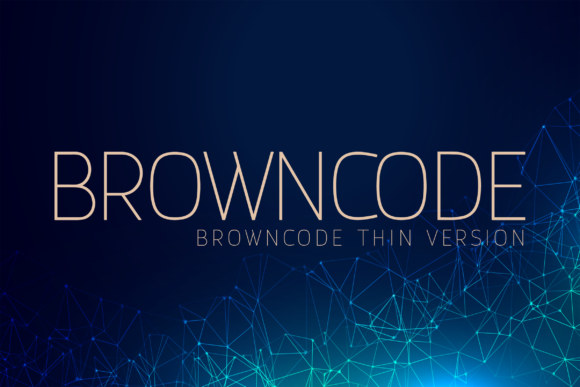
Discover the Perfect Blend of Style and Readability
Have you ever found yourself staring at a blank page, searching for the perfect font to bring your design to life? The struggle is real, but what if I told you that there’s a solution that’s been hiding in plain sight? For designers, the quest for the perfect font can be a never-ending journey, but what if I told you that you’ve just stumbled upon the perfect companion?
Enter the Browncode Thin Font, a stunning sans serif font that combines elegance with absolute readability. This beautifully balanced font is designed to deliver your message with clarity and style, making it the perfect choice for any design project. Whether you’re working on a branding project, a magazine layout, or a website design, the Browncode Thin Font is sure to elevate your design game.
Browncode Thin Font Key Features
- Font Family: Browncode Thin, Browncode Thin Italic
- Unique Characteristics: Designed to be highly legible at small font sizes, ideal for digital displays and signage
- Language Support: Supports Latin-based languages, including English, Spanish, French, and many more
Browncode Thin Font Review
Overall, I’m quite impressed with the Browncode Thin Font. It’s a great addition to any design project that requires a clean and minimalist aesthetic. ✨ The font is incredibly legible, even at smaller font sizes, and it pairs well with a variety of other fonts.
- Legibility: The Browncode Thin Font is remarkably easy to read, making it perfect for body text or titles.
- Design versatility: This font can be used for a wide range of design projects, from digital interfaces to print materials.
- Modern feel: The font’s thin lines and clean design give it a modern and sleek look that’s perfect for contemporary designs.
That being said, there are a few limitations to the Browncode Thin Font. ⚠️ The font may not be the best choice for projects that require a lot of emphasis or drama, as its thin lines can make it difficult to stand out. Additionally, the font may not be as suitable for projects with a lot of bold or heavy elements.
Overall, I’m really pleased with the Browncode Thin Font. It’s a solid choice for designers who want a clean, modern font that’s easy to read and versatile in its applications.
Getting the Most Out of Browncode Thin Font
For optimal results, use Browncode Thin Font in conjunction with a clean and modern design aesthetic.
Use Browncode Thin Font for headings and titles to add a touch of sophistication.
Browncode Thin Font is ideal for:
Alternatives to Browncode Thin Font
Open Sans Light
Open Sans Light is a clean and modern sans-serif font suitable for digital interfaces, signage, and body text. It’s ideal for designs where a light, yet legible font is required.
Comparison to Browncode Thin Font: Open Sans Light has a more rounded and friendly feel, whereas Browncode Thin Font has a more geometric and technical appearance. Open Sans Light is more versatile and can be used in a wider range of designs.
Montserrat Light
Montserrat Light is a sans-serif font designed for urban environments and digital interfaces. It’s perfect for designs that require a clean, modern, and highly legible font.
Comparison to Browncode Thin Font: Montserrat Light has a more geometric and condensed feel, whereas Browncode Thin Font has a more relaxed and cursive appearance. Montserrat Light is ideal for designs that require a high level of readability.
Merriweather Light
Merriweather Light is a classic serif font suitable for body text, editorial content, and historical designs. It’s ideal for designs where a traditional and elegant font is required.
Comparison to Browncode Thin Font: Merriweather Light has a more traditional and formal feel, whereas Browncode Thin Font has a more modern and technical appearance. Merriweather Light is more suitable for designs that require a sense of sophistication and elegance.
Lato Light
Lato Light is a modern sans-serif font suitable for digital interfaces, signage, and body text. It’s ideal for designs where a clean, modern, and highly legible font is required.
Q: Can I customize the Browncode Thin Font for my specific design needs?
Yes, the Browncode Thin Font can be customized to meet your specific design needs. You can adjust the font’s color, size, and spacing using most design software applications. Additionally, the font can be modified using font editing software, such as FontForge or Glyphs, to create custom variations and styles.